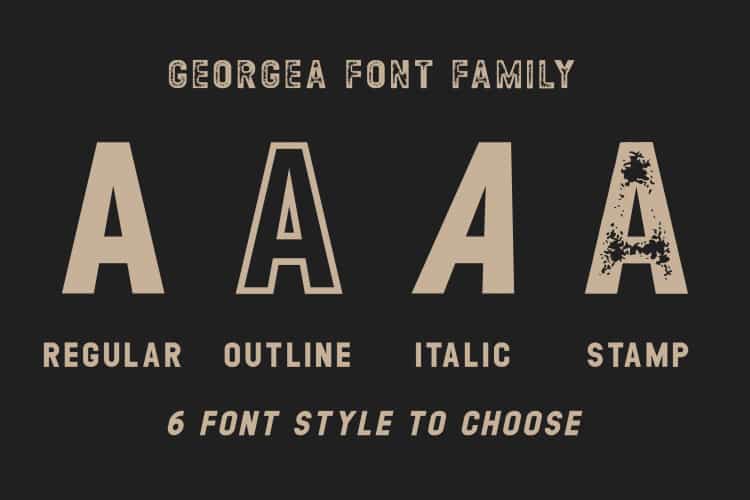
Introducing Georgea All Caps Font Family. GEORGETA is a font family that has all the characters in caps and belongs to sans serif fonts. It is made up of the regular, outline and grunge version plus they come with the normal & italic style. Georgea has 6 OTF & TTF font files. Pick whatever you like for your desired designs, match between each other version or stand alone.